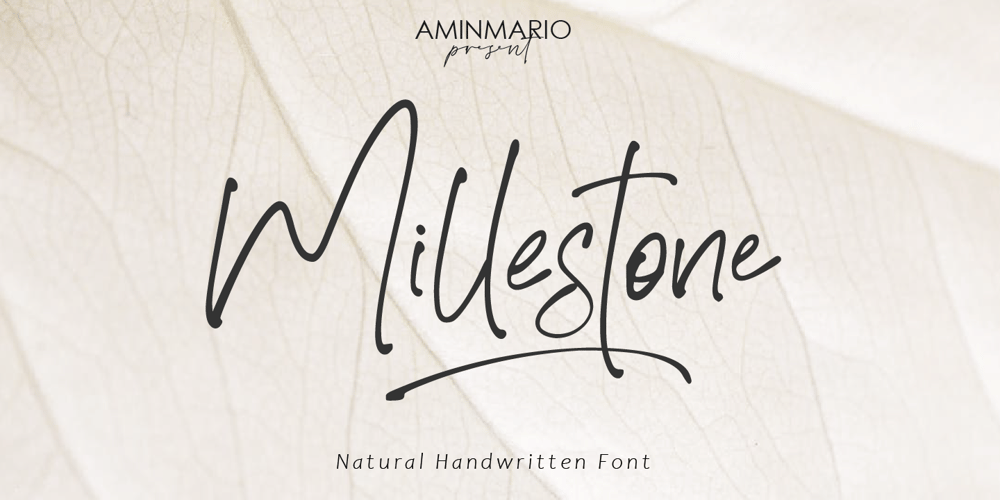
Millestone Font Family was designed by Amin Maryono and published by Aminmario Studio. Millestone contains 2 styles and family package options. Millestone Font This font was created to look as close to a natural handwritten script as possible by including some alternates lowercase, ligature and underlines. Built in Opentype features, this script comes to life as if you were writing it yourself.Comes with regular and italic. Also support multilingual.Perfect for any awesome projects that need hand writing taste.It’s highly recommended to use it in opentype capable software – there are plenty out there nowadays as technology catches up with design … Other than Photoshop, Illustrator and Indesign, many standard simple programs now come with Opentype capabilities – even the most basic ones such as Apple’s Text Edit, Pages, Keynote, iBooks Author, etc. Even Word has found ways to incorporate it.Thanks for checking out this font. I hope you enjoy it!AminMario